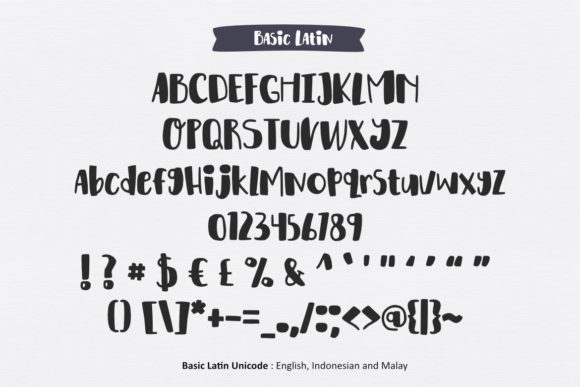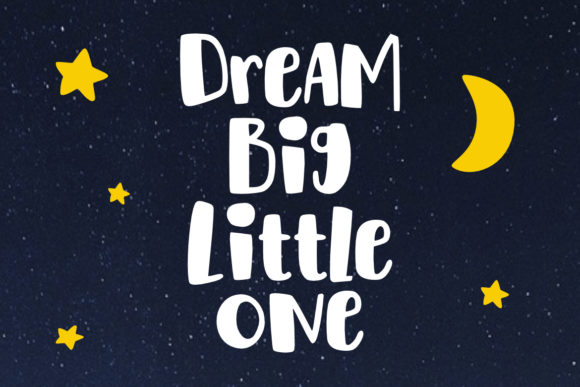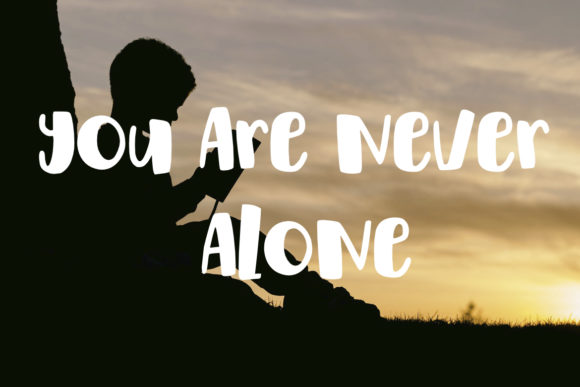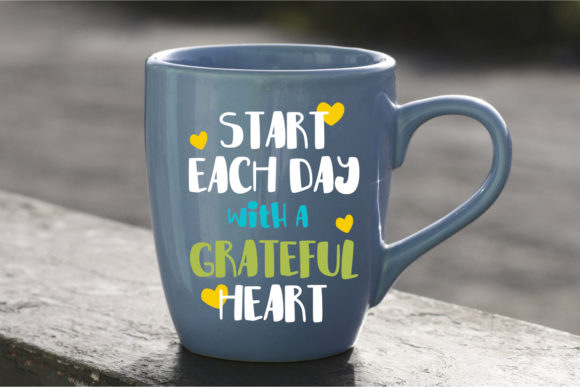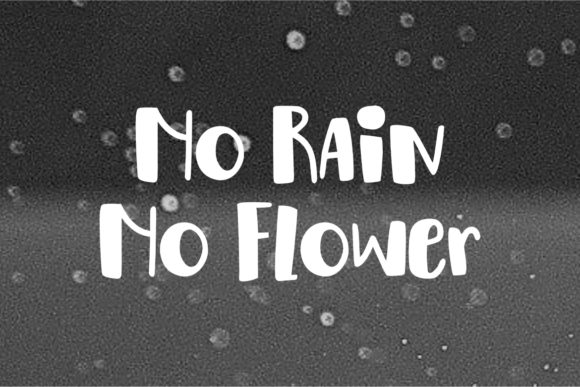
Introducing Happy Kids Font: The Ultimate Display Font for Fun and Creativity
Are you tired of using the same old fonts for your kids’ projects and school assignments? Look no further than Happy Kids Font, a playful and enchanting display font that embodies fun, quirkiness, and authenticity. This delightful font is perfect for designers, crafters, and parents who want to add a touch of whimsy and personality to their creative projects.
The Characteristics of Happy Kids Font
Happy Kids Font is a unique and eye-catching display font that is sure to turn any creative idea into a true standout. Its childlike playfulness and quirky charm make it perfect for kids’ projects, school assignments, and any other creative endeavor that requires a dash of fun and personality. The font features:
- Unique lettering style: Happy Kids Font boasts a distinctive lettering style that is both playful and charming.
- Quirky charm: The font’s quirky charm adds a touch of personality to any project.
- Childlike playfulness: Happy Kids Font is perfect for kids’ projects and school assignments that require a fun and playful touch.
Uses for Happy Kids Font
Happy Kids Font is a versatile font that can be used for a wide range of creative projects, including:
- Kids’ projects: Use Happy Kids Font to add a touch of fun and personality to kids’ projects, such as school assignments, art projects, and crafts.
- School assignments: Happy Kids Font is perfect for school assignments, such as posters, presentations, and reports.
- Crafting projects: Add a touch of whimsy and personality to your crafting projects, such as scrapbooking, card making, and DIY home decor.
- Digital design: Use Happy Kids Font in digital design projects, such as social media graphics, blog posts, and website headers.
Benefits of Using Happy Kids Font
Using Happy Kids Font offers a range of benefits, including:
- Adds personality to projects: Happy Kids Font adds a touch of personality and whimsy to any project.
- Perfect for kids’ projects: The font is specifically designed for kids’ projects and school assignments.
- Easy to read: Despite its playful style, Happy Kids Font is easy to read and understand.
- Versatile: Happy Kids Font can be used for a wide range of creative projects.
Tips for Using Happy Kids Font
Here are some tips for using Happy Kids Font:
- Use it sparingly: Use Happy Kids Font sparingly to add a touch of personality to your project.
- Pair it with other fonts: Pair Happy Kids Font with other fonts to create a unique and eye-catching design.
- Experiment with colors: Experiment with different colors to add an extra touch of personality to your project.
- Have fun: Most importantly, have fun and be creative with Happy Kids Font!
Happy Kids Font is a unique and enchanting display font that embodies fun, quirkiness, and authenticity. Its childlike playfulness and quirky charm make it perfect for kids’ projects, school assignments, and any other creative endeavor that requires a dash of fun and personality. With its versatility, ease of use, and range of benefits, Happy Kids Font is a must-have font for designers, crafters, and parents. So why not give it a try and see how it can add a touch of whimsy and personality to your next creative project?